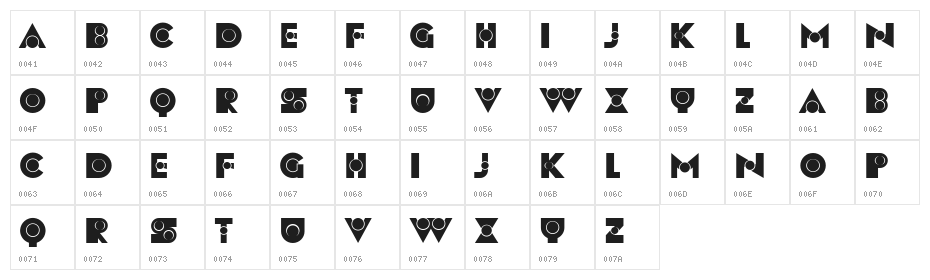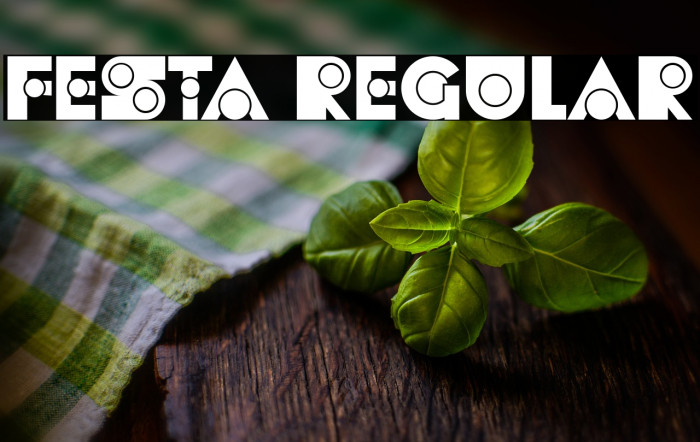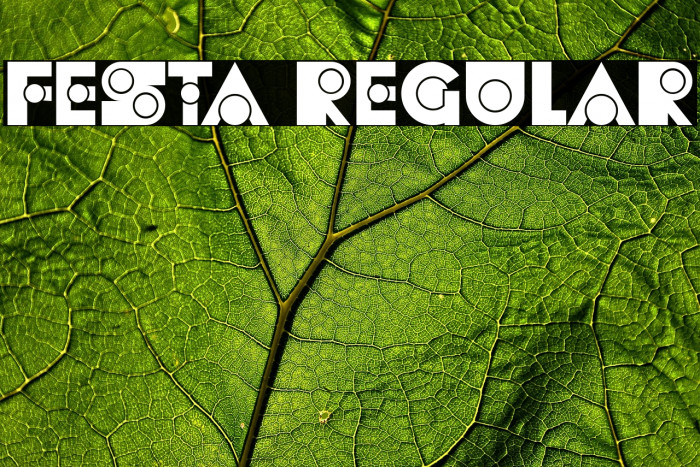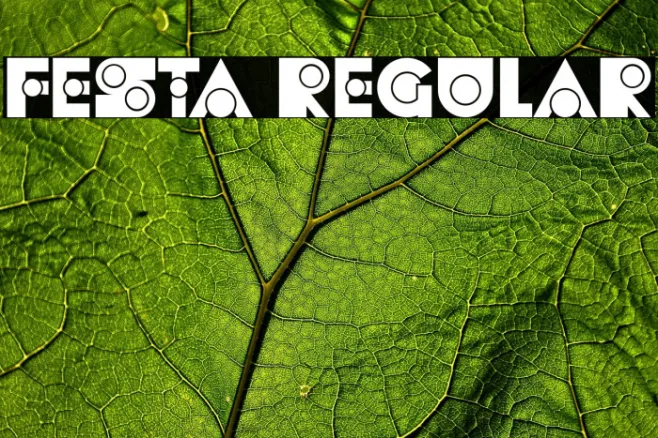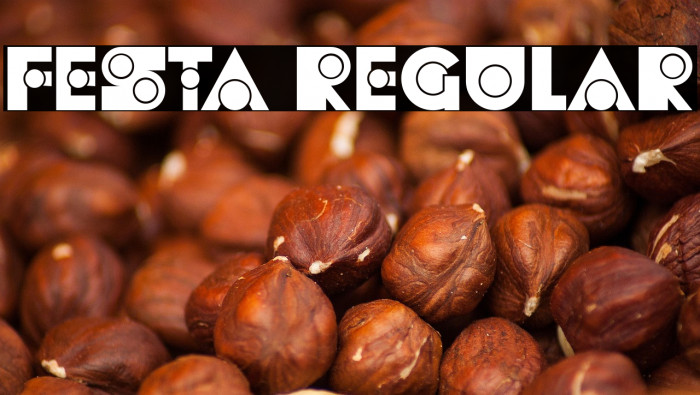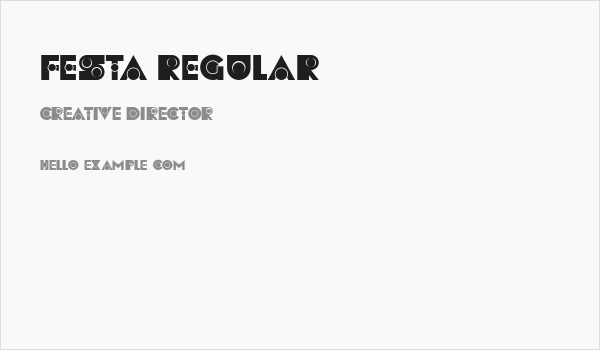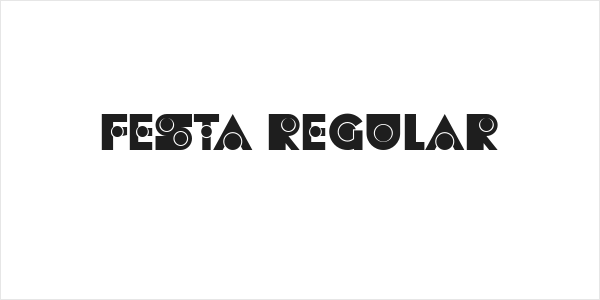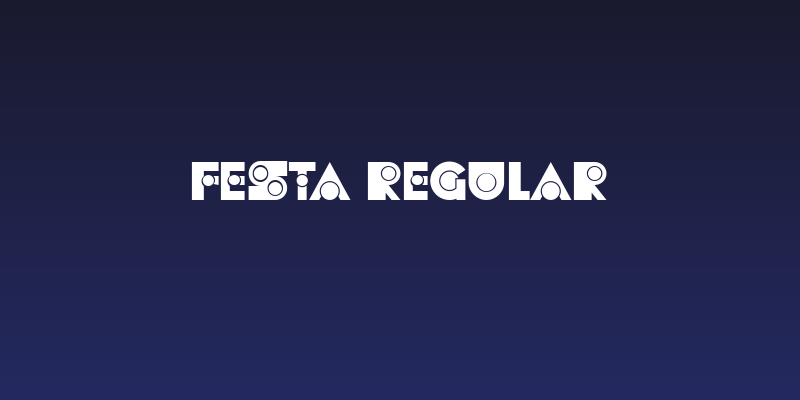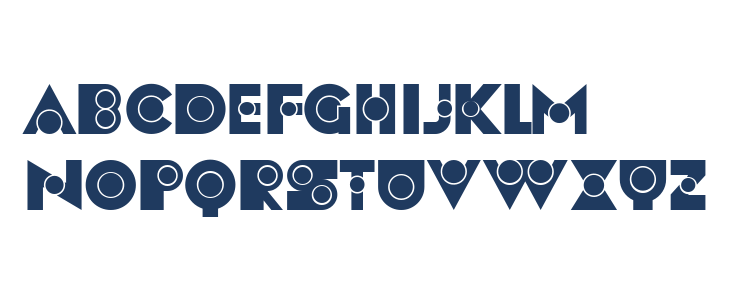
Festa Regular Font
Festa Regular Description
This font features a bold and geometric design with a strong emphasis on circular and angular shapes. Each letter is crafted with a unique combination of solid and hollow forms, creating a striking visual contrast. The use of circles within the characters adds a playful and modern touch, while the overall structure remains bold and impactful. This font is ideal for making a statement, with its eye-catching design and distinctive style. The characters are evenly spaced, ensuring readability while maintaining its decorative appeal.